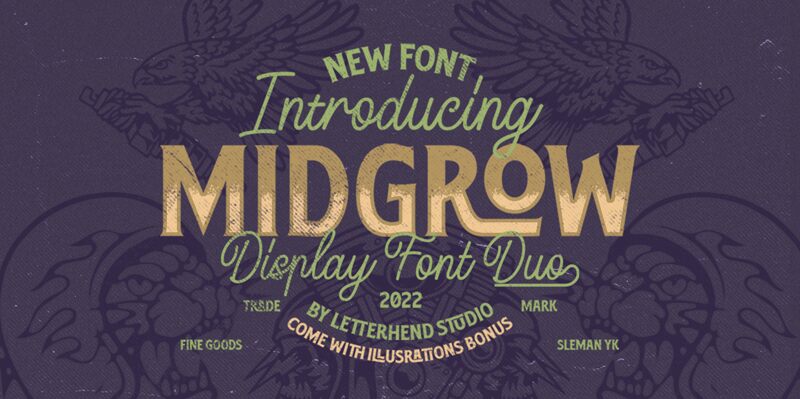
Midgrow, a creation of Letterhend Studio, is a semi-bold display font that captures the essence of retro style with a contemporary twist. With its bold, clean lines and subtly curved edges, Midgrow offers an aesthetic appeal that is both striking and familiar. The font's character shapes exude a sense of nostalgia while maintaining modern readability.
Perfect for branding projects, signage, and advertising that demands attention, Midgrow is versatile in its application. Its retro flair makes it ideally suited for designs seeking to evoke the charm of yesteryear with a fresh vibe. Whether utilized in digital graphics or print media, this font stands out for its ability to blend vintage sensibilities with current design trends.
In essence, Midgrow's unique characteristics make it not only a nod to the past but also a bold statement for today's creative ventures.